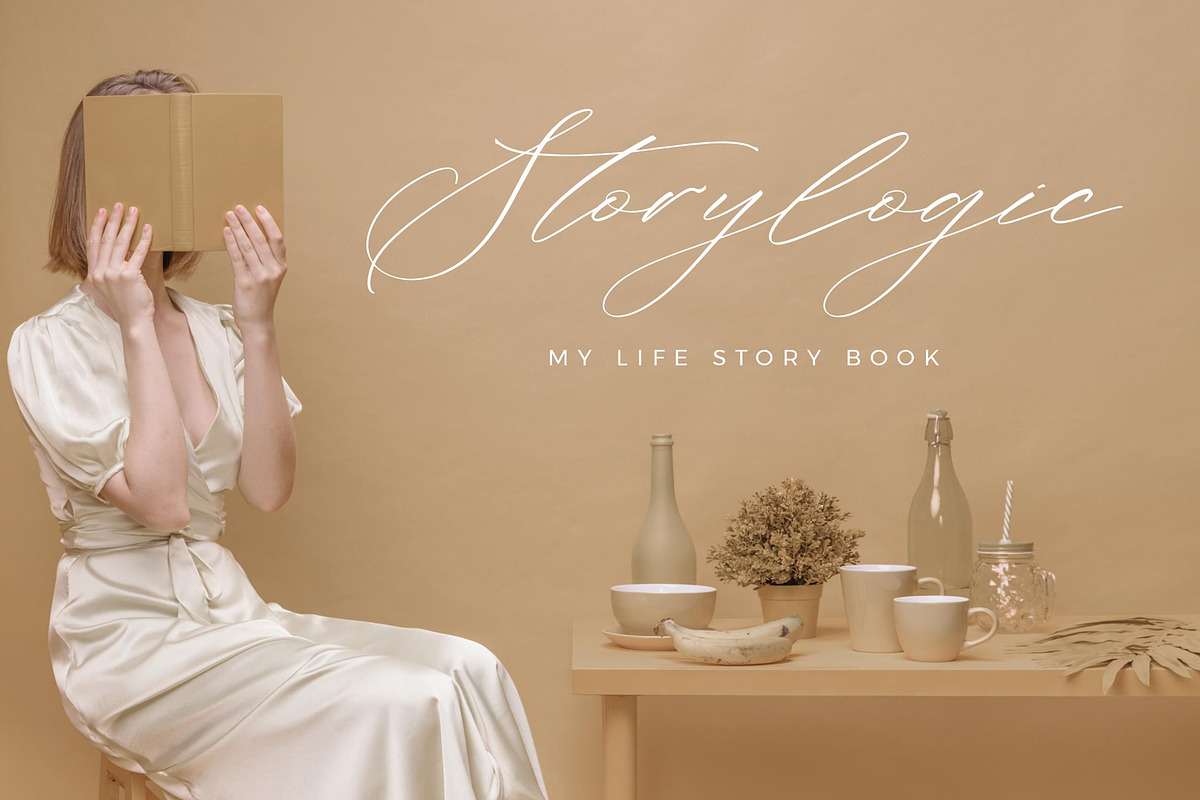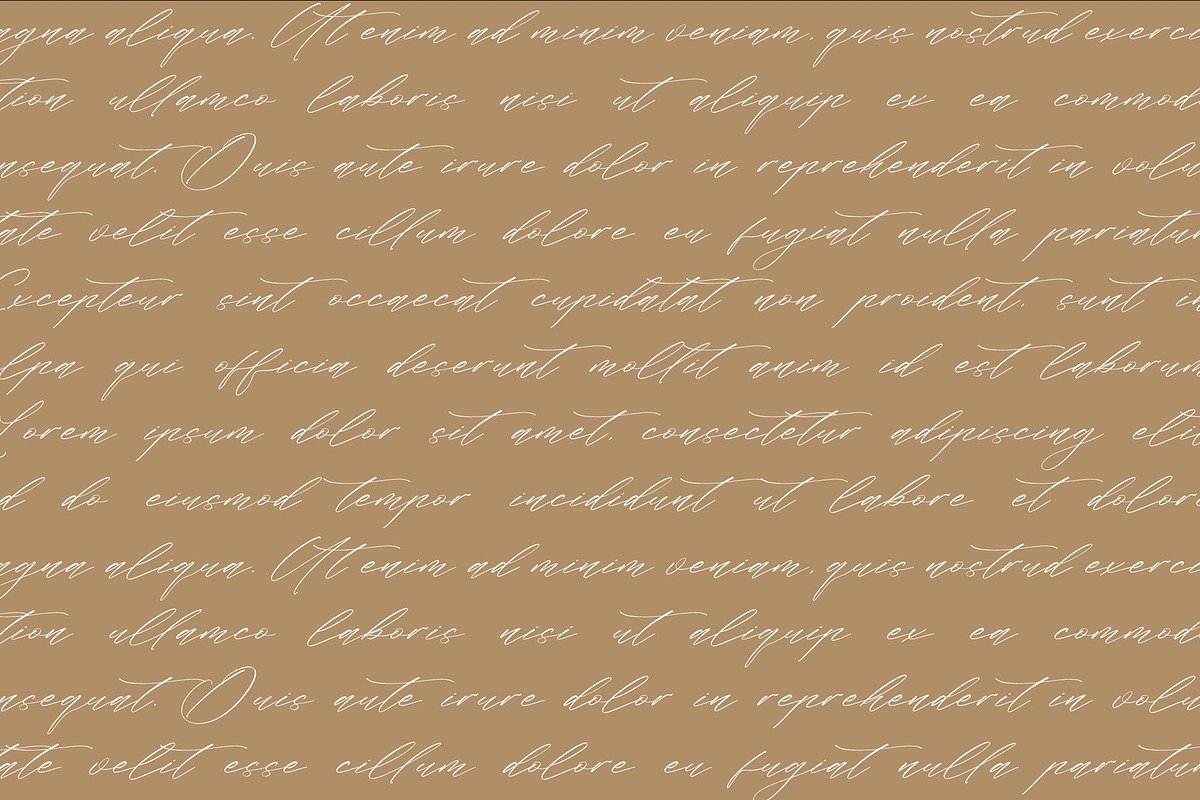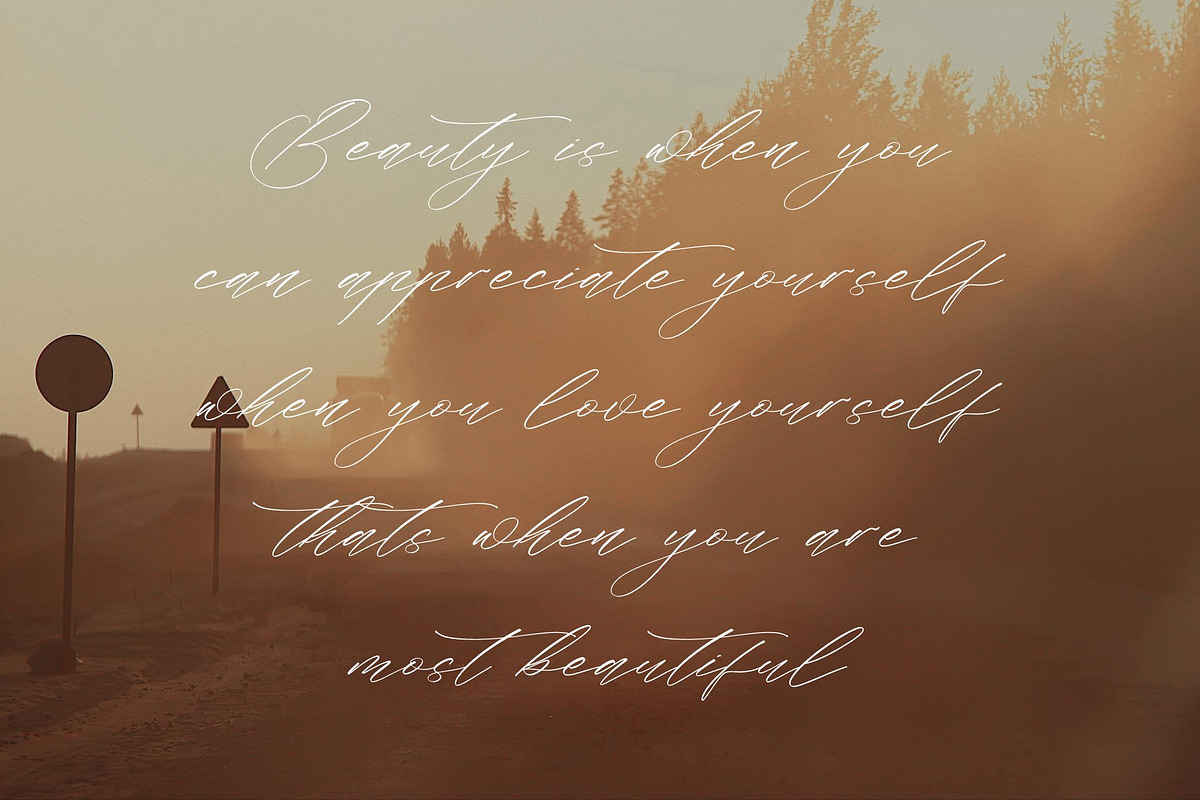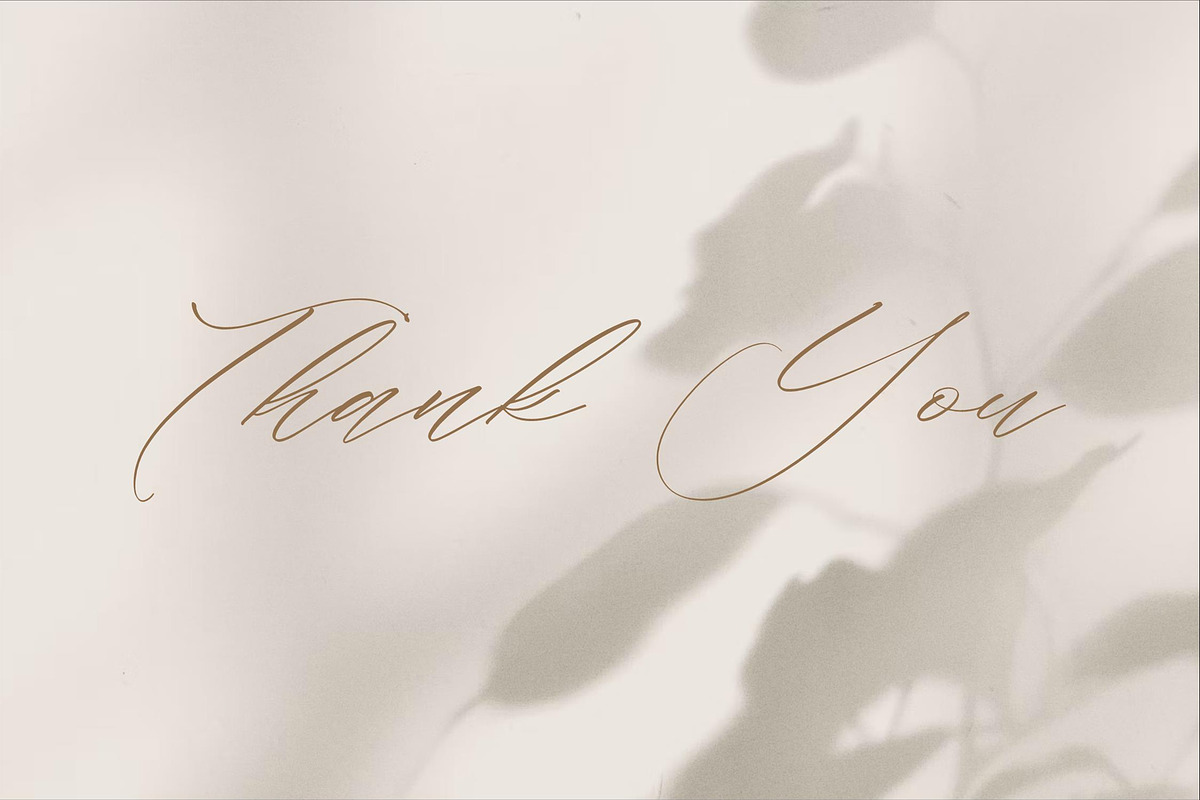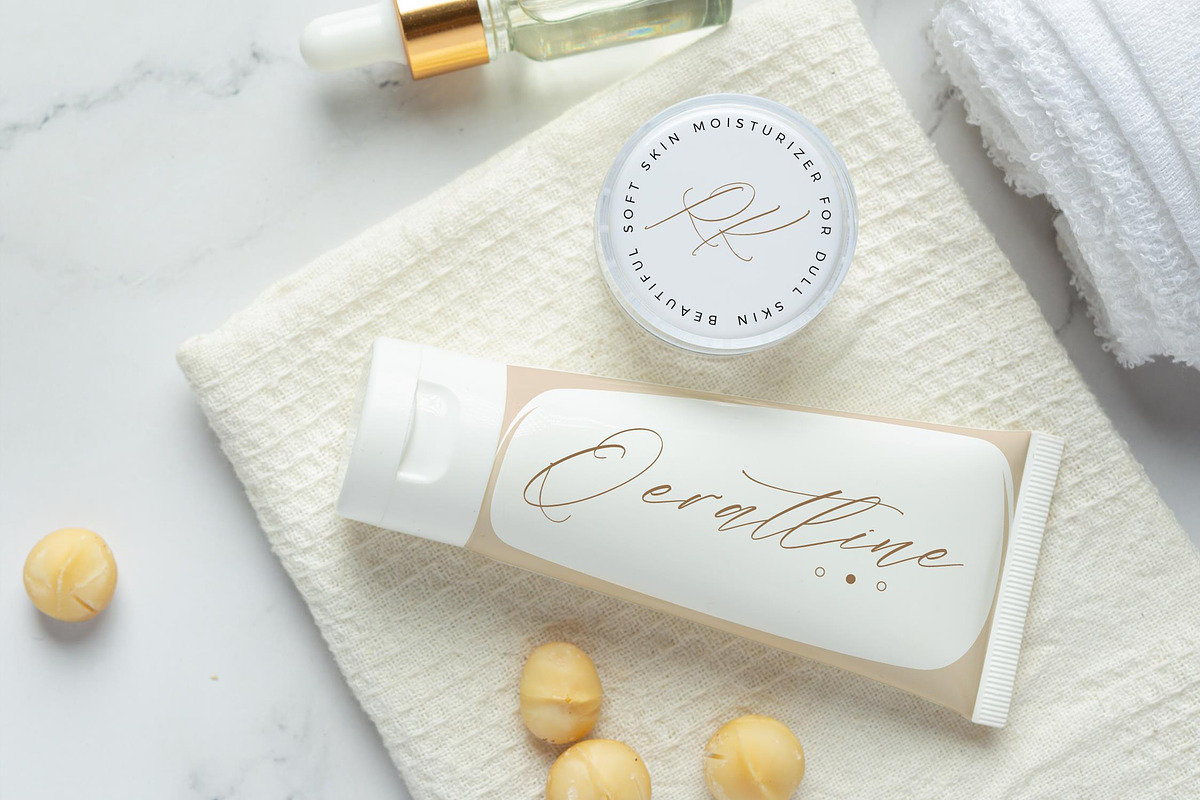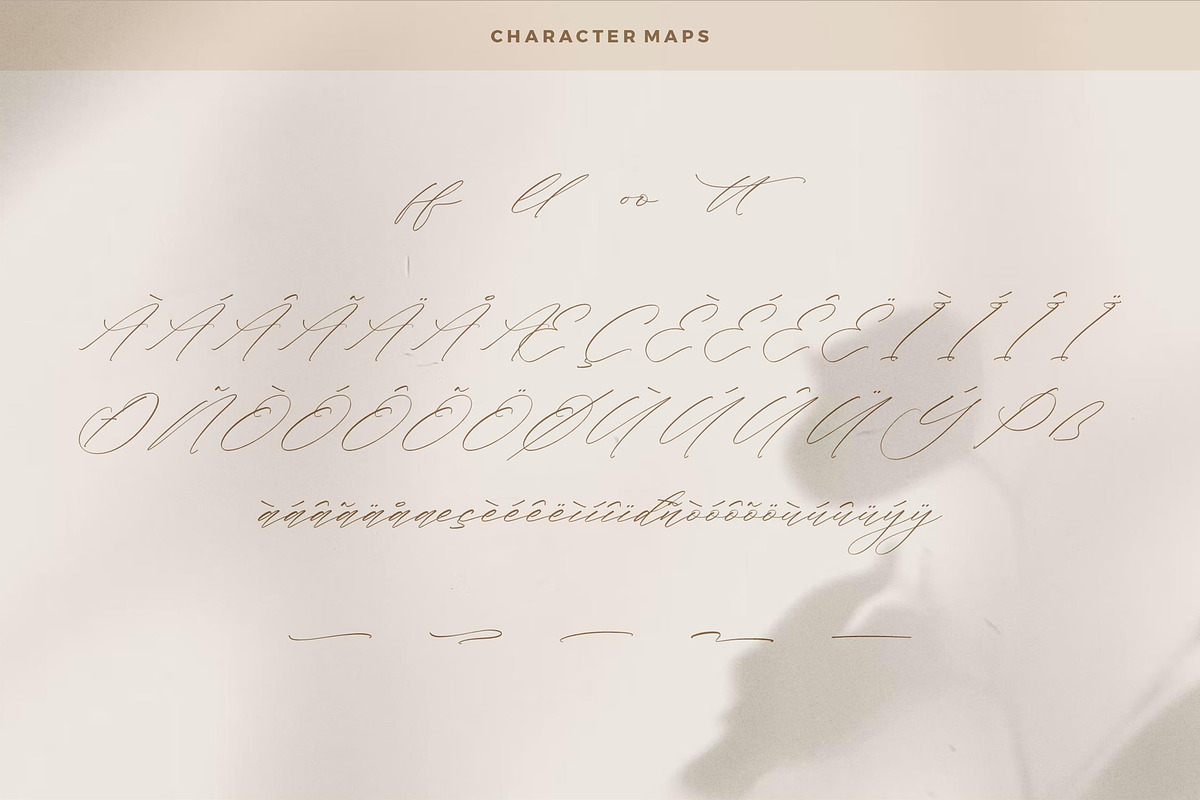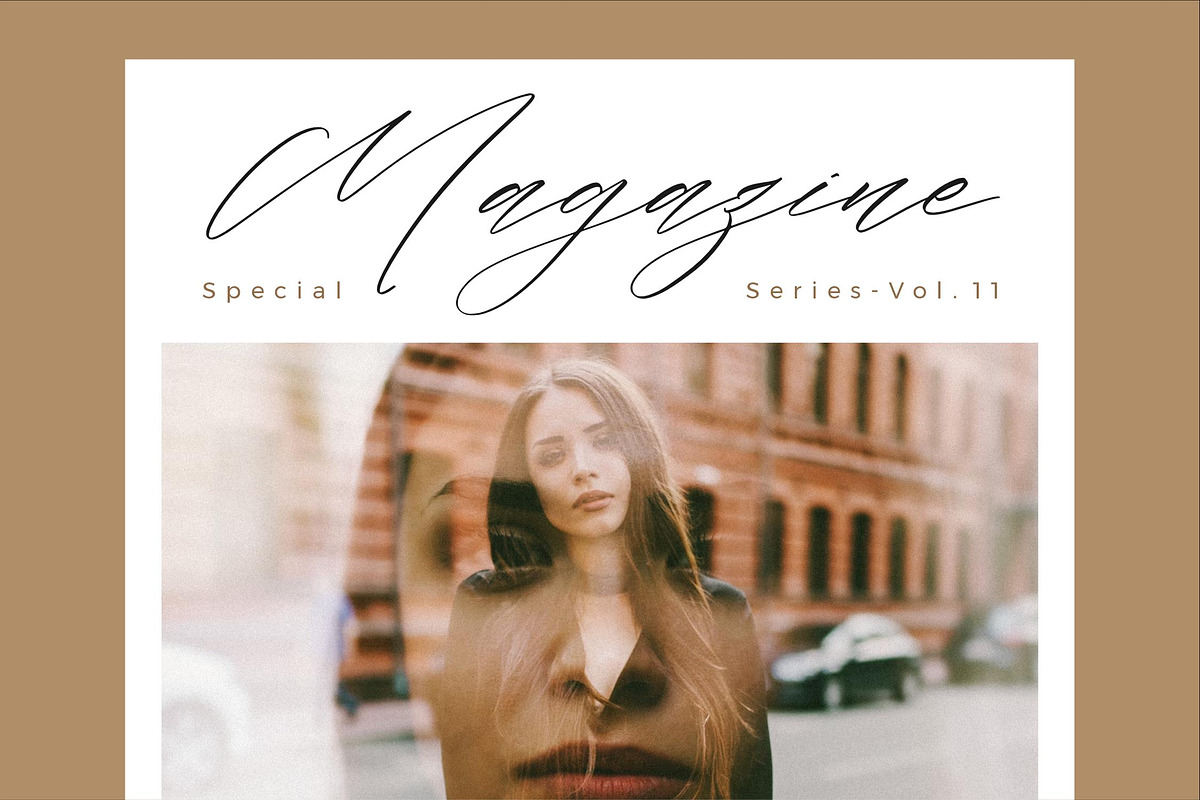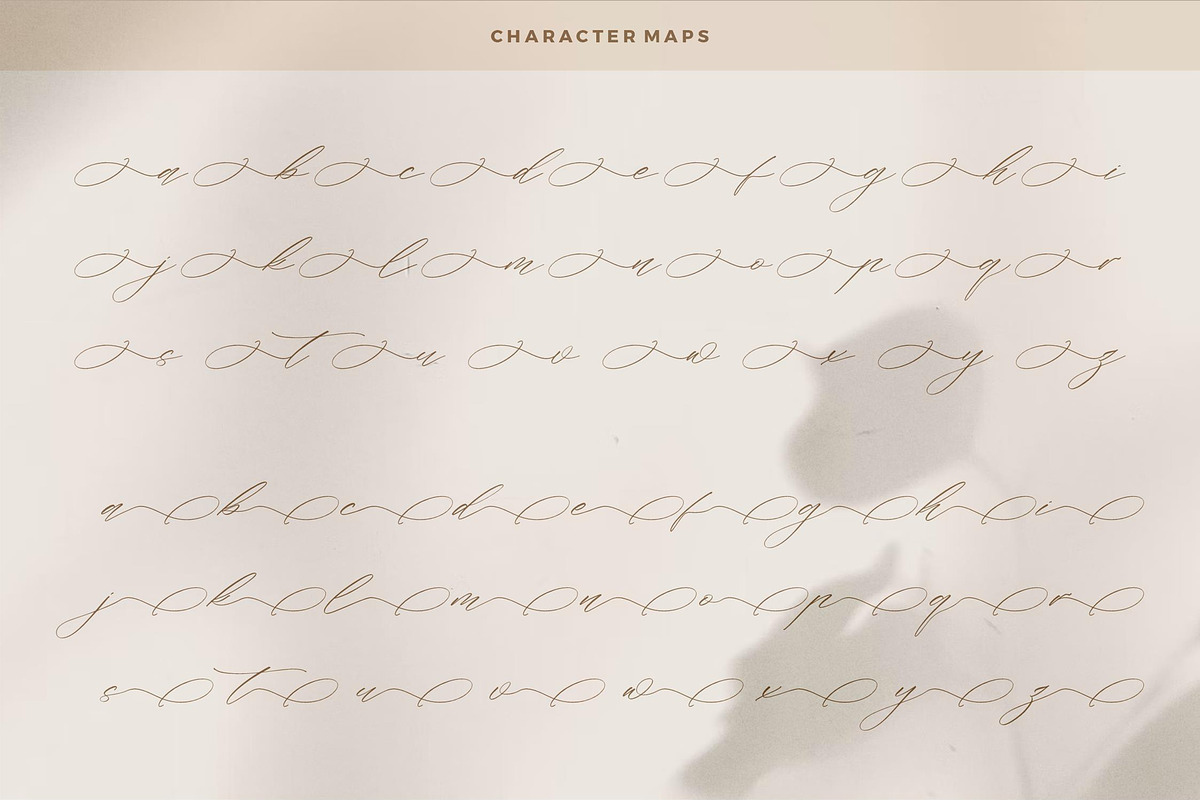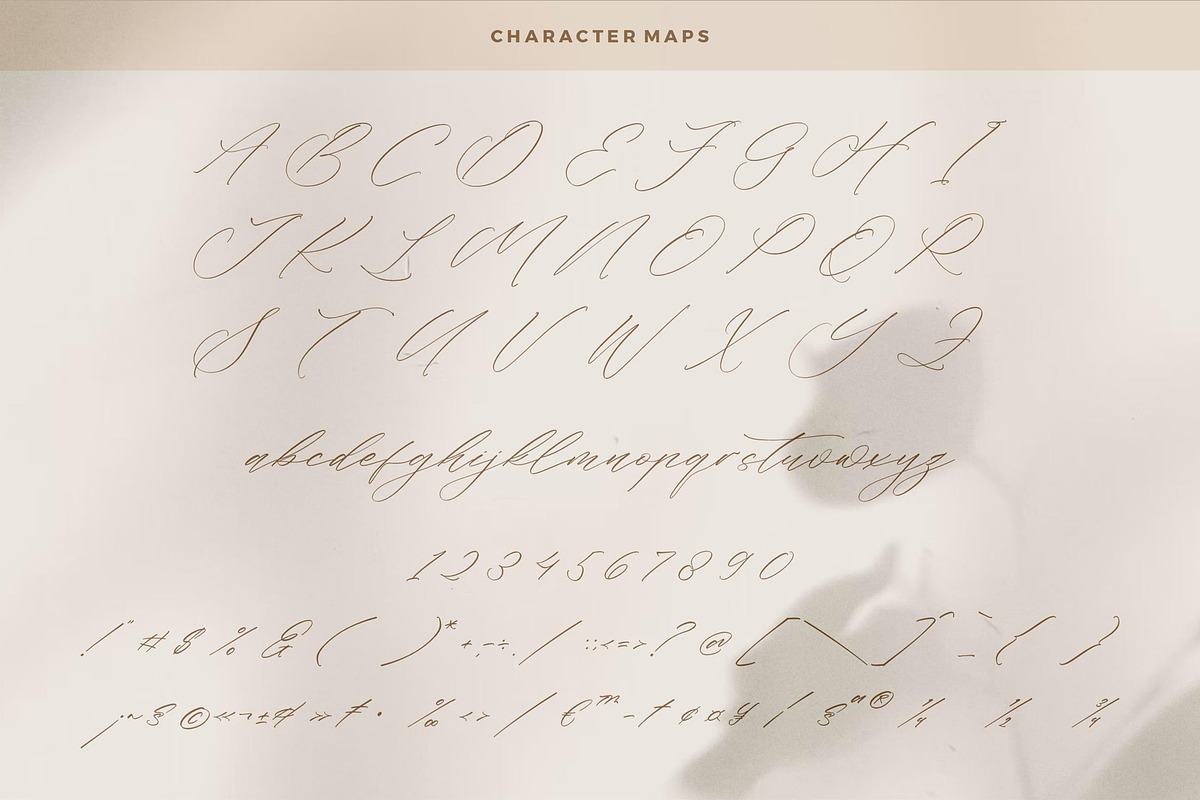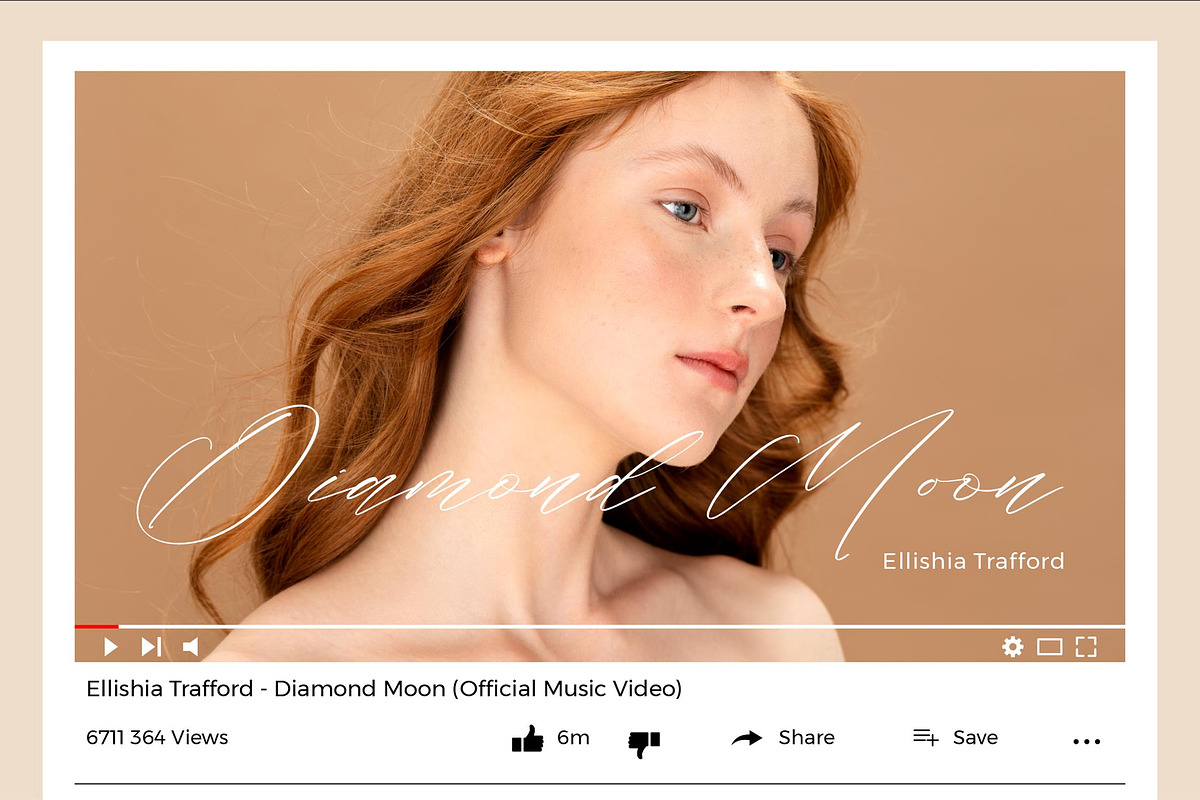
Flumtips Noulevia – Chic Calligraphy
Proudly present Flumtips Noulevia - Chic Calligraphy Font , created by Storytype, A luxury script that has own unique style & modern look. This typeface is perfect for an elegant & luxury logo, book or movie title design, fashion brand, magazine, clothes, lettering, quotes, and so much more.